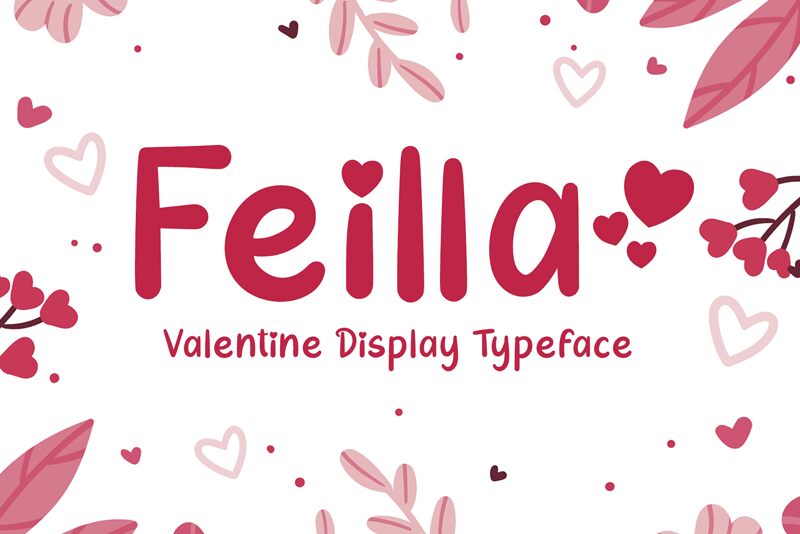
Feilla font by AEN Creative Studio is an adorable, charming valentine typeface that will make your design stand out. Bold, rounded edges give a look of playful style and casual mood to any text. Each letter has uniform thickness and beautiful smooth curves, enhanced with a low contrast ratio and soft lines. Feilla is perfect for adding that special touch to occasions like Valentine's Day!
Use this fresh design in logos, books & greeting cards designs, stationery posters – even marketing materials! Or why not inject some romance into invitations or menus? Feilla can also be used creatively on packaging projects too; the possibilities are endless!